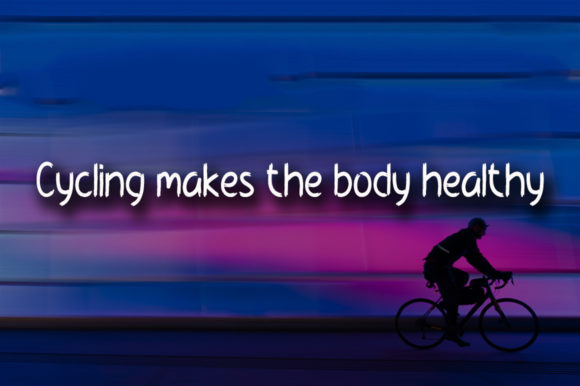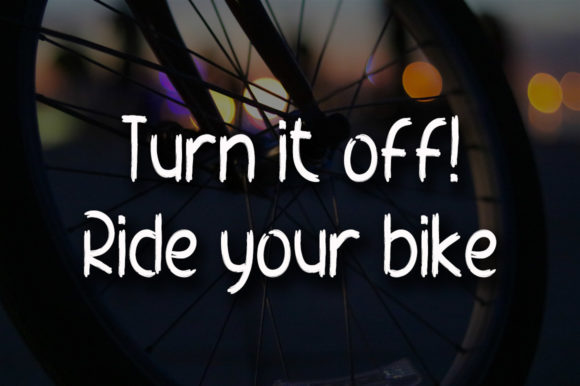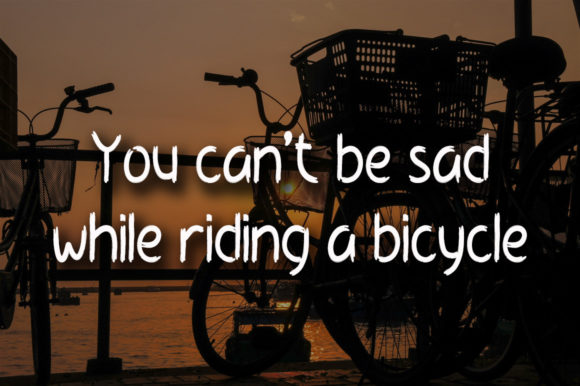
The Perfect Spin: Discovering the Charm of Bicycle Wheel Font
I’ll never forget the time I was working on a luxury branding project for a high-end cycling boutique. My client wanted a font that exuded elegance, sophistication, and a hint of playfulness. I scoured the internet, tried out countless fonts, but nothing seemed to fit the bill. That was until I stumbled upon Bicycle Wheel Font. ✨
This casual, yet chic handwritten font has been a game-changer for my design projects. Its unique charm lies in the way its characters dance along the baseline, adding a touch of luxury to any design. In this article, I’ll share my experience with Bicycle Wheel Font, its features, and how to make the most of it in various design platforms.
- ✨ Unique and elegant handwritten style
- ✅ Easy to read and understand, even at smaller font sizes
- ✅ Extensive character set, including glyphs and stylistic alternates
- ✅ Works well for both digital and print designs
While Bicycle Wheel Font is an excellent choice, there are a few things to keep in mind: ⚠️
- 🤔 Some characters may not work well in all contexts, such as all-caps headings
- ⚠️ Limited support for non-English languages
Bicycle Wheel Font was designed with the intention of capturing the carefree spirit of cycling. Its creator wanted to craft a font that would evoke the feeling of freedom and joy that comes with riding a bike on a sunny day. With its unique, dancing characters, Bicycle Wheel Font is sure to add a touch of whimsy to any design project.
Q: What is the best use case for Bicycle Wheel Font?
A: Bicycle Wheel Font is versatile and can be used for a variety of design projects, including luxury branding, packaging, and digital designs.
Q: Is Bicycle Wheel Font suitable for body text?
A: While Bicycle Wheel Font is easy to read, it’s best suited for headings and titles. For body text, a clearer font may be more suitable.